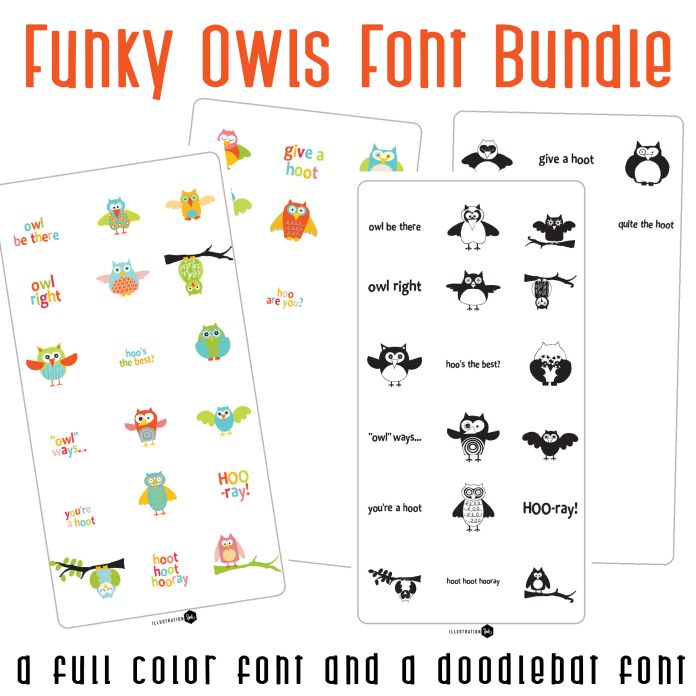
This bundle includes one regular dingbat font and one full color dingbat font for one low price! So that is two fonts for the price of one! Get 26 funky owl full color images and 26 black and white owls, perfect for cards, crafts, gifts, decor, classrooms, planner stickers, scrap book pages and more!